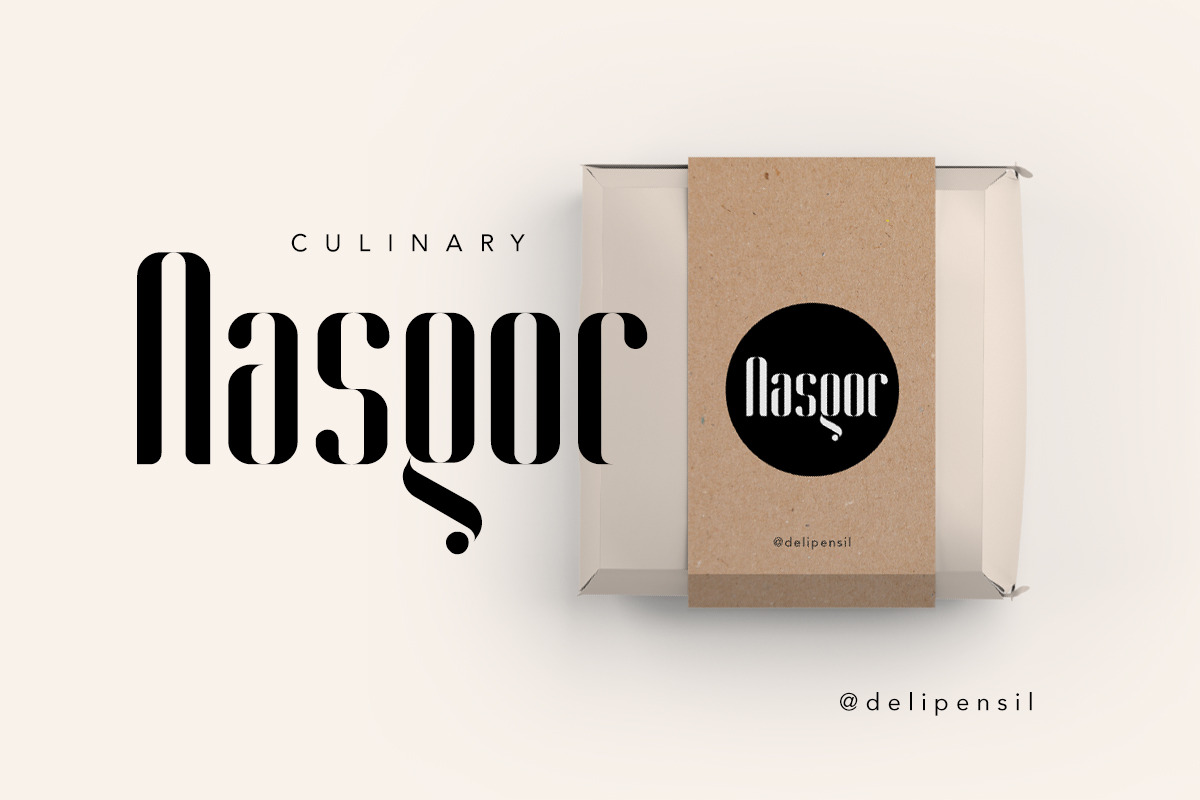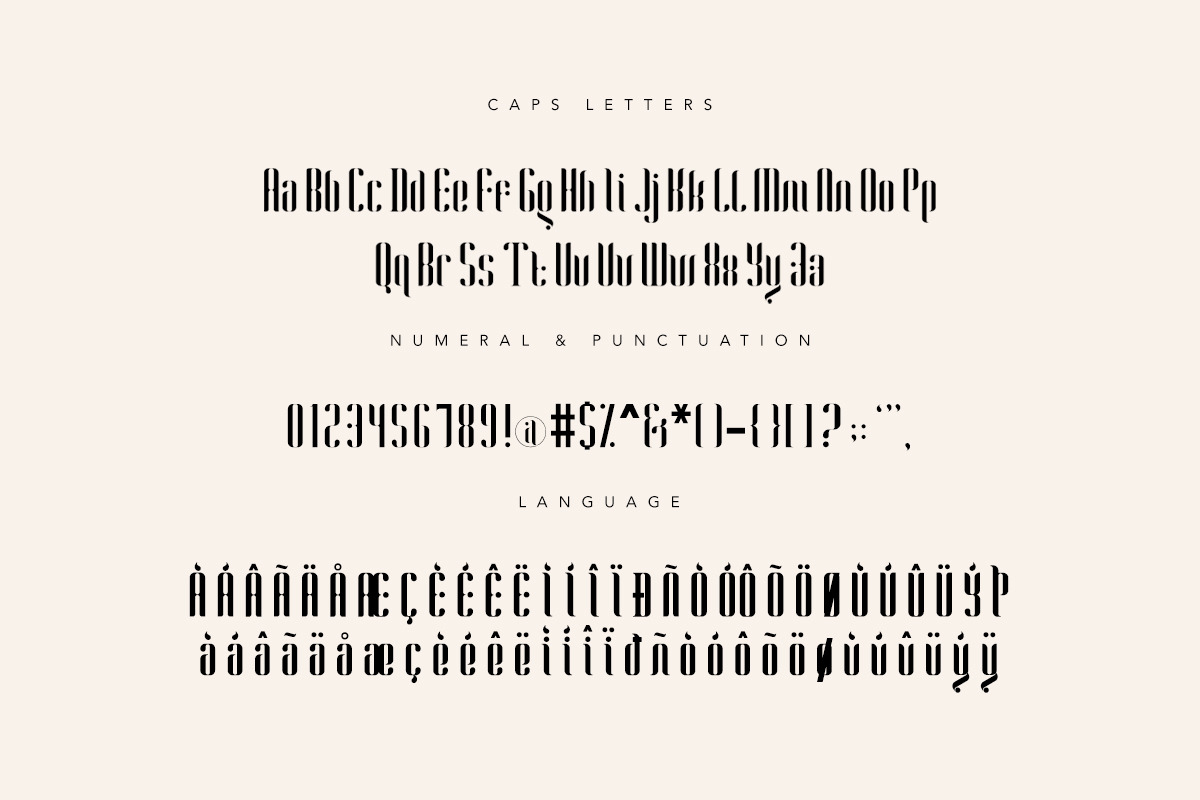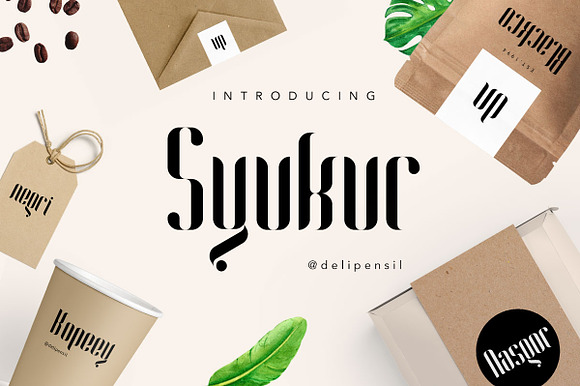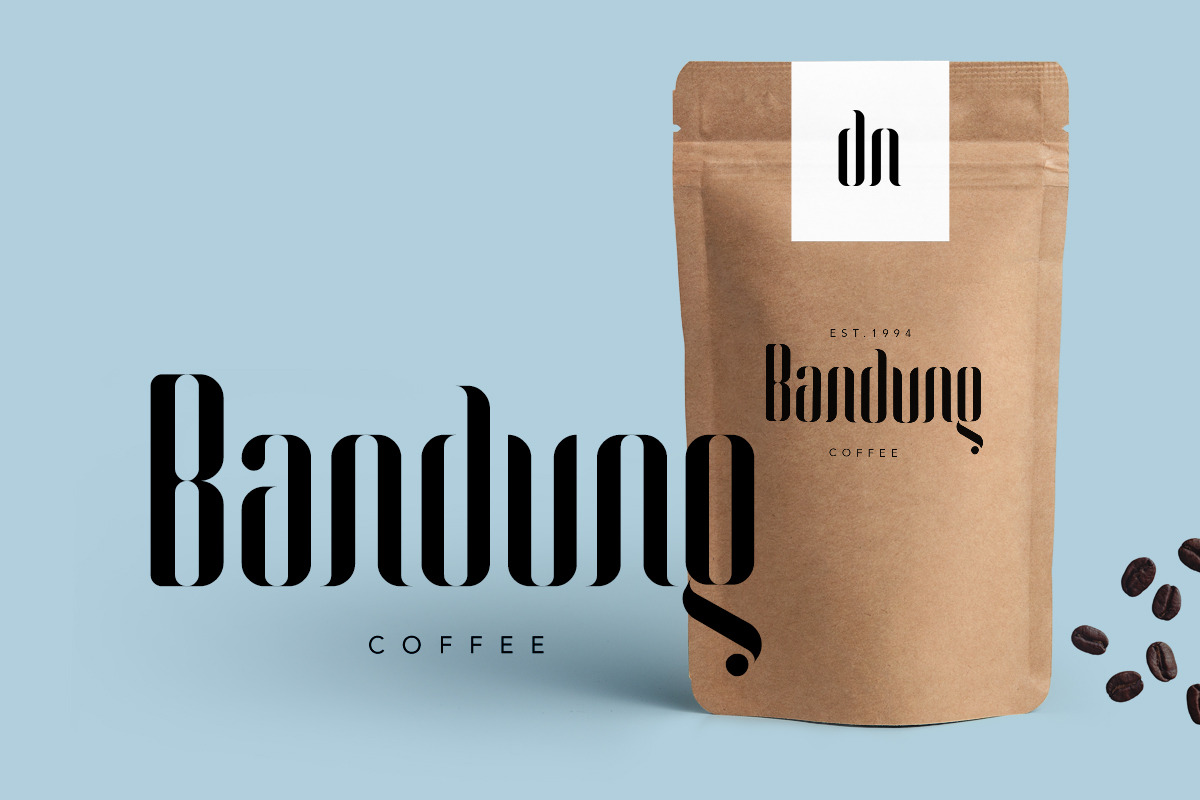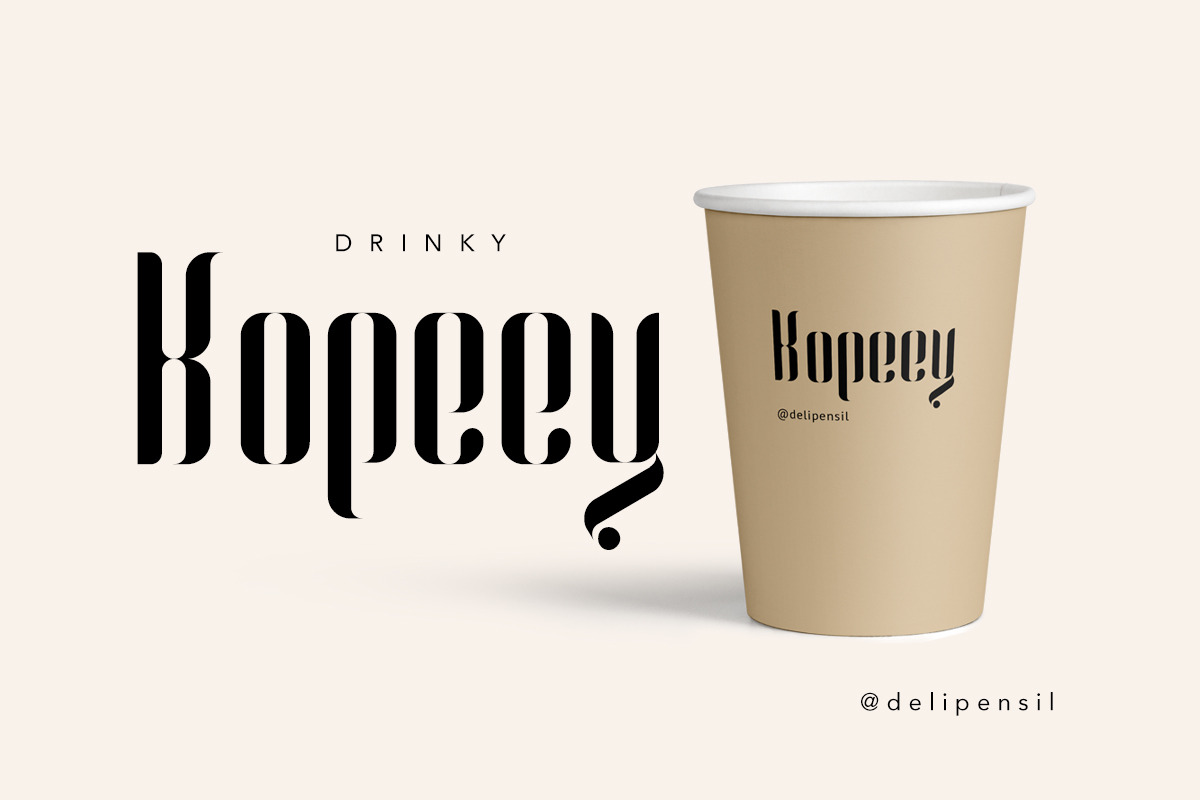
Syukur Regular Font
Bismillah, Hello Everyone, Introducing Syukur Regular Font our new Font already launch :), this font come with unique character, beauty clean and sweet look too, and this font Suitable for Packaging Food, Logo Letter, Sans Serif font, Poster or clothing design, and many more :)
Syukur-Regular Font Style
Syukur-Regular Numeral & Punctuation
Syukur-Regular Language Style